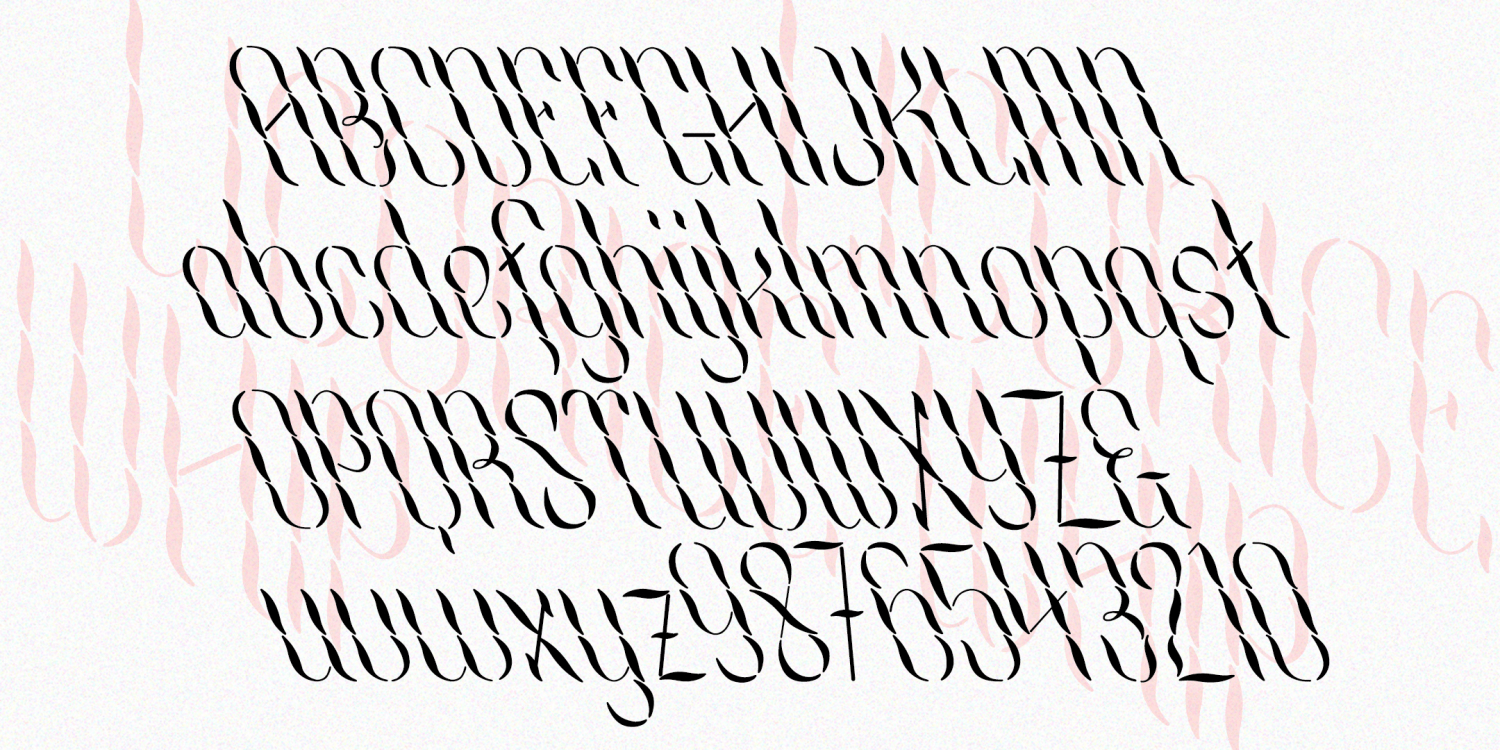
Licorice Whip
Licorice Whip was inspired by an example from a 1920 book: "A most novel alphabet by Mr. G. E. Gustafson, Penman, Inter-State Commercial College, Reading, Pa." It was once important for a professional to use the pen well, the visual equivalent of elocution. The neat thin-thick strokes show good control of the pen; along with the gaps, a shimmering effect is created, or perhaps the look of twisted ribbon. A full-alphabet companion to my Cascade Monograms.